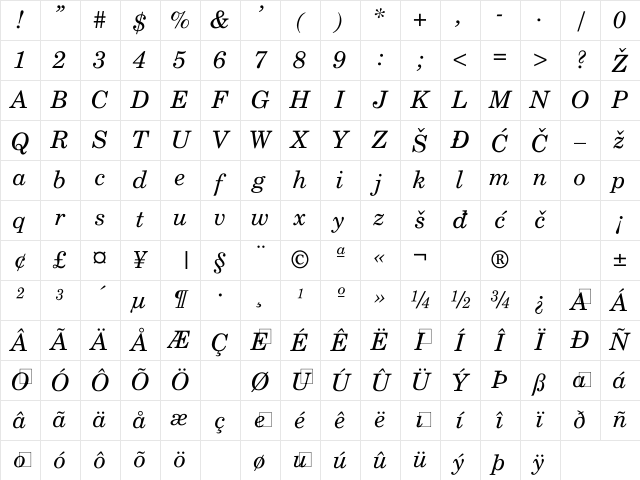
Brunswik Italic Regular
Brunswik Italic Family
Design Context for Brunswik Italic
Brunswik Italic is a composed and adaptable typeface that performs quietly and consistently across a wide range of design contexts. The slanted form adds forward momentum and visual energy.
Pro Tip: Use Brunswik Italic for emphasis, pull quotes, and subheadings where its slanted energy can add rhythm to the layout.